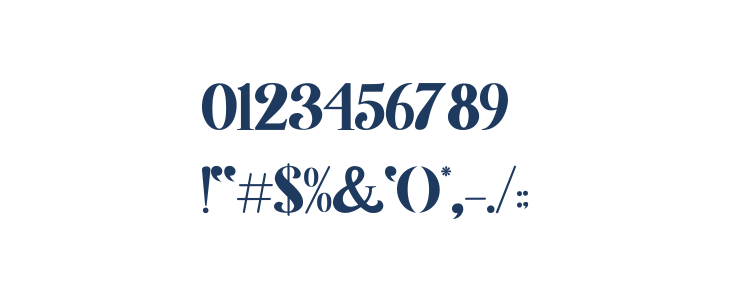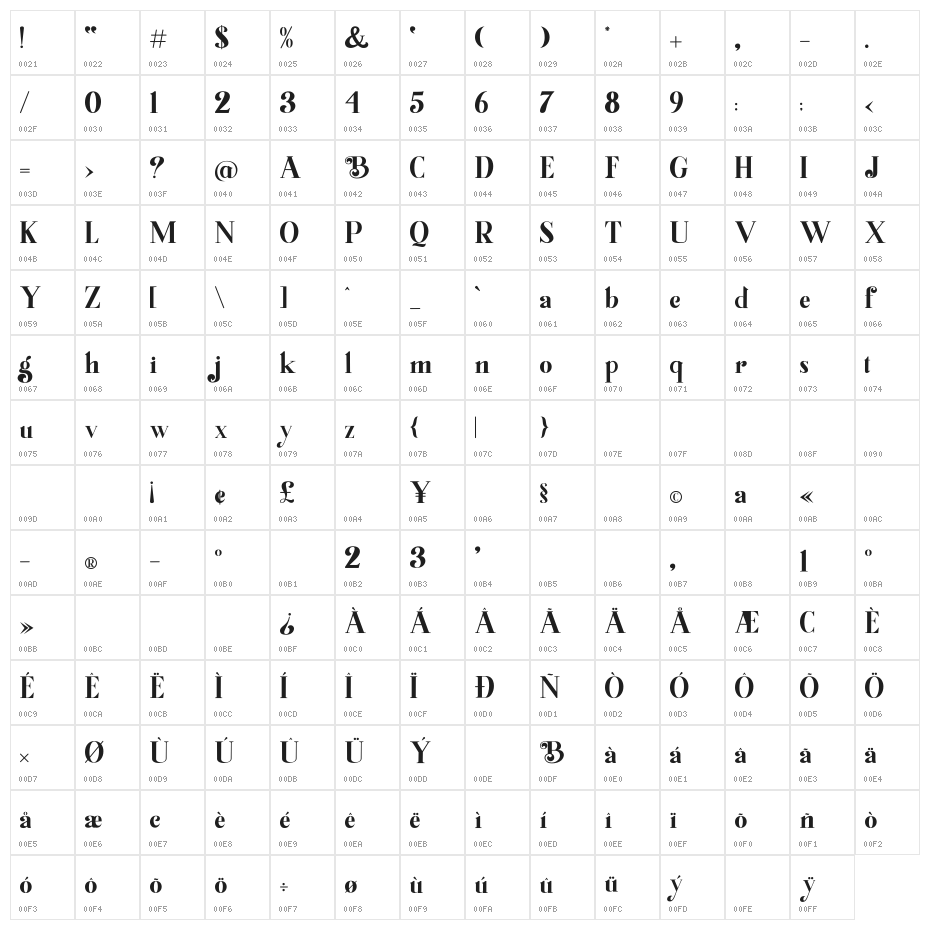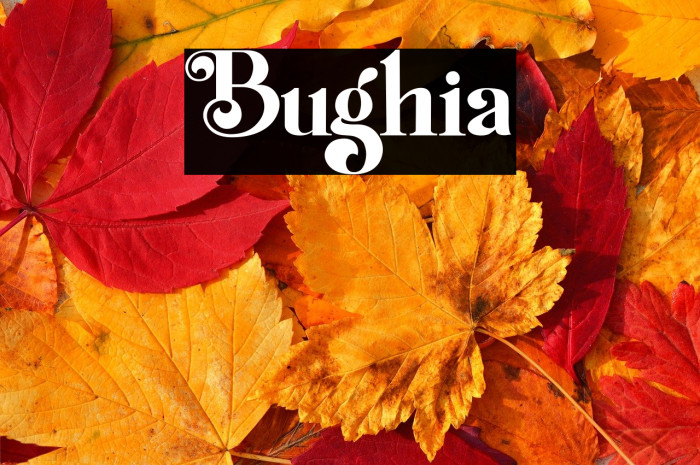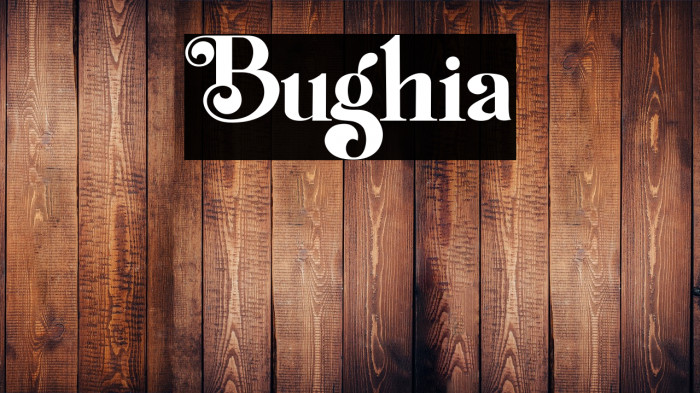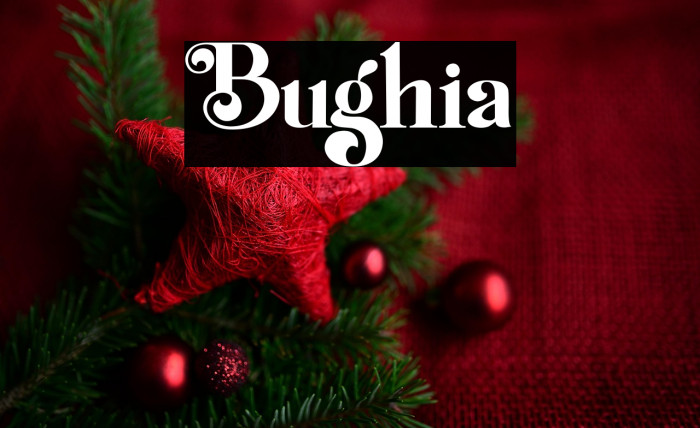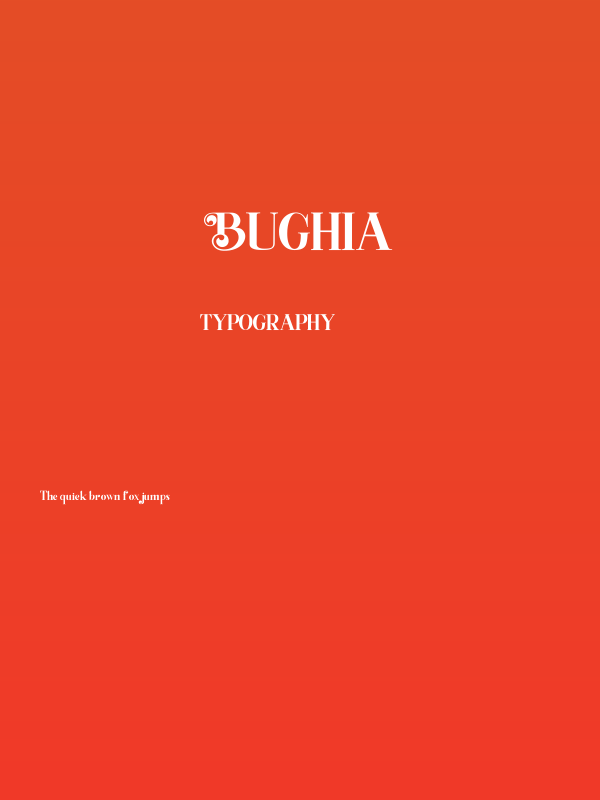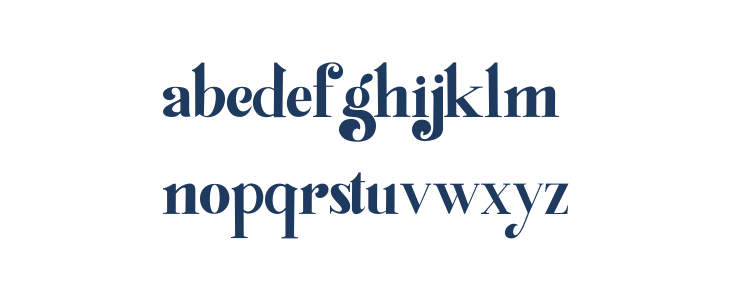
Bughia Font
Bughia Description
This font features a bold and decorative style with a distinctive flair. The uppercase letters are characterized by intricate swirls and embellishments, particularly noticeable in letters like B and G. The lowercase letters maintain a more traditional serif appearance but still carry a hint of the decorative style seen in the uppercase. The numerals are bold and consistent with the overall theme, providing a strong visual presence. Special characters are uniquely styled, adding to the font's decorative appeal. This font is ideal for projects that require a touch of elegance and creativity.
| Proposed Projects | Ideal for wedding invitations, luxury branding, artistic posters, and decorative headlines. |